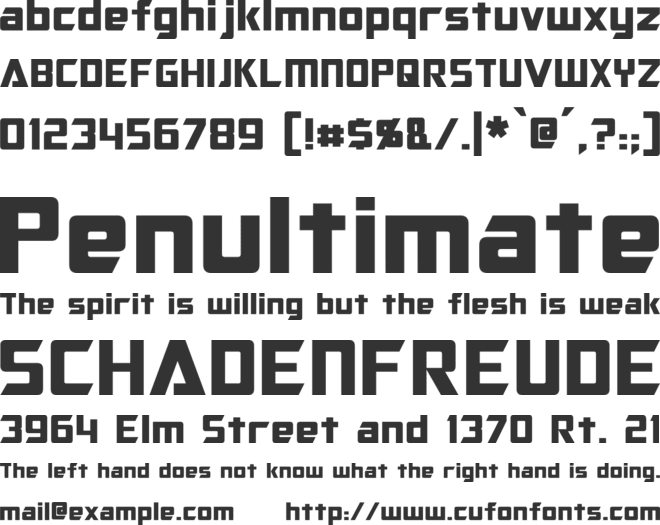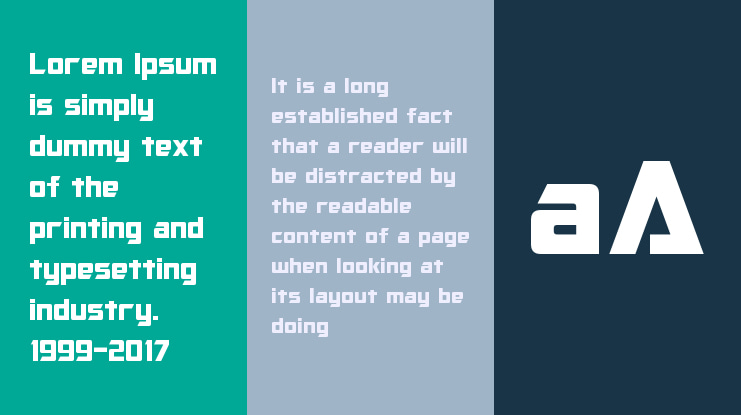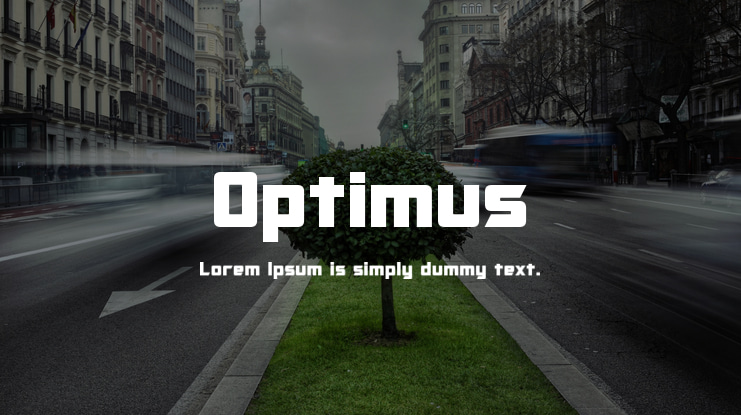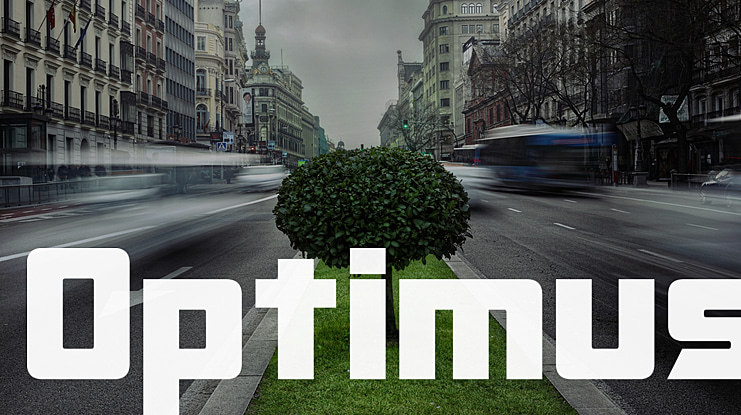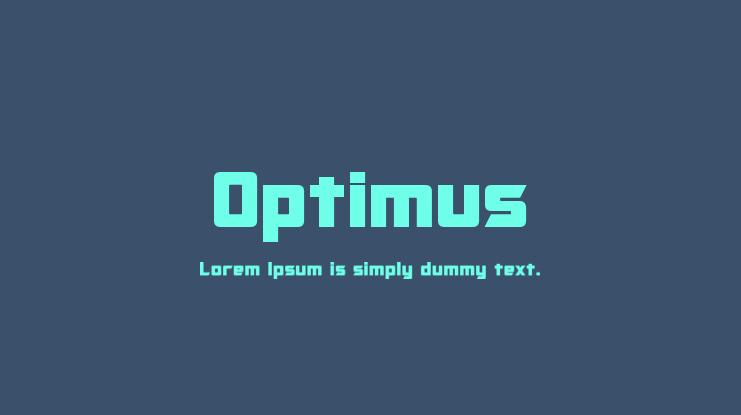
Optimus Font Family
A thick, bold font based on the original Transformers logo from Hasbro, Inc. Includes full alphabet and punctuation, extended character set, and euro. Left and right braces replaced with Autobot and Decepticon symbols, respectively. Includes bold, hollow, italic, bold-italic and hollow-italic versions. (Version 1.10)